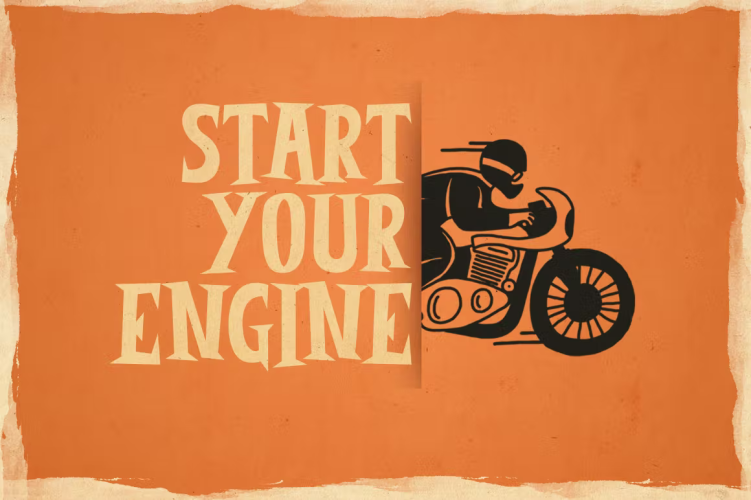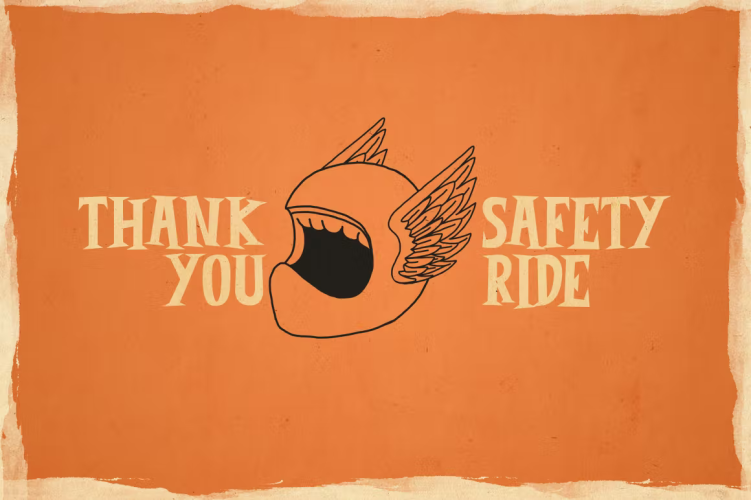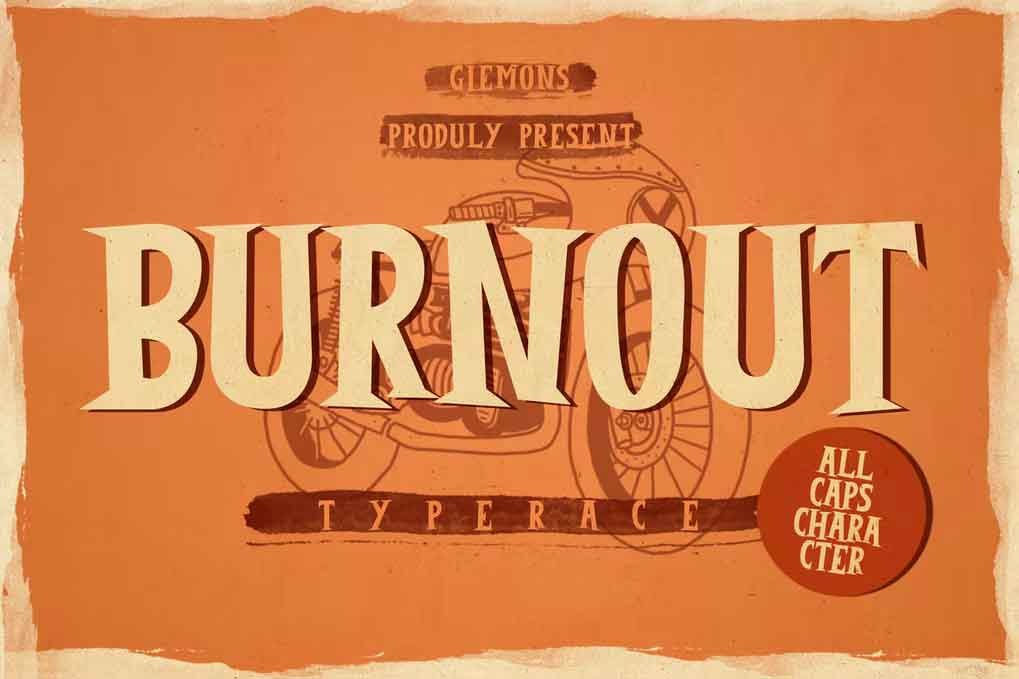
Burnout Font
a BURNOUT Typeface is unique font and also has vintage display font. Can make it easier to convey the message in your design. Use for awesome display, labeling, clothing…
a BURNOUT Typeface is unique font and also has vintage display font. Can make it easier to convey the message in your design. Use for awesome display, labeling, clothing, movie sceen, poster, movie title, gigs, album covers, logos, and much more.
Where Burnout Font works best
Headlines and titles
Burnout Font has enough character to carry a headline on its own; set it large and keep the supporting text plain.
Brand and product names
Short strings are where this typeface is strongest — a name, a label, a cover line.
Social and video graphics
Set Burnout Font over a flat colour or a quiet photograph so the letterforms stay the focus.
What kind of work does Burnout Font suit?
It sits in the Web Fonts group and reads as branding, display, music, typeface. That makes it a candidate wherever those qualities help: headings, packaging, social graphics and brand work. Set it at the size you plan to use before deciding.